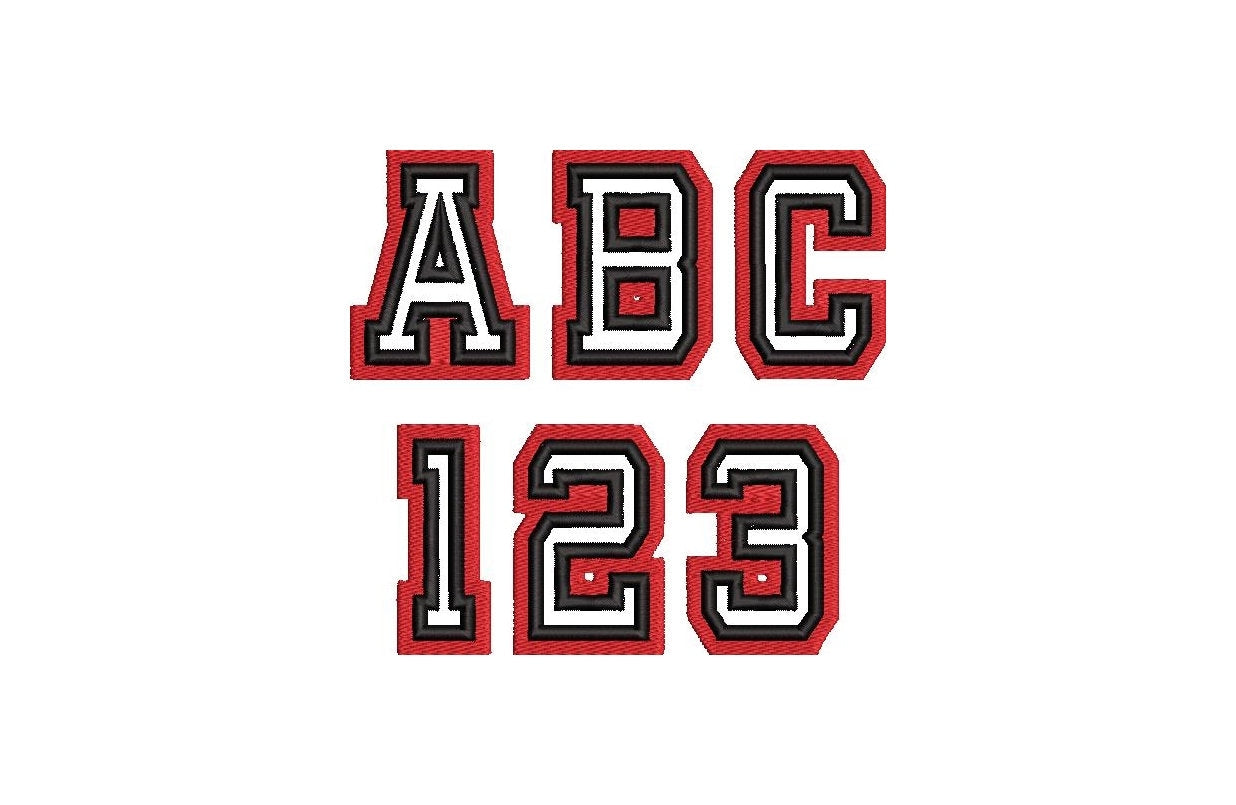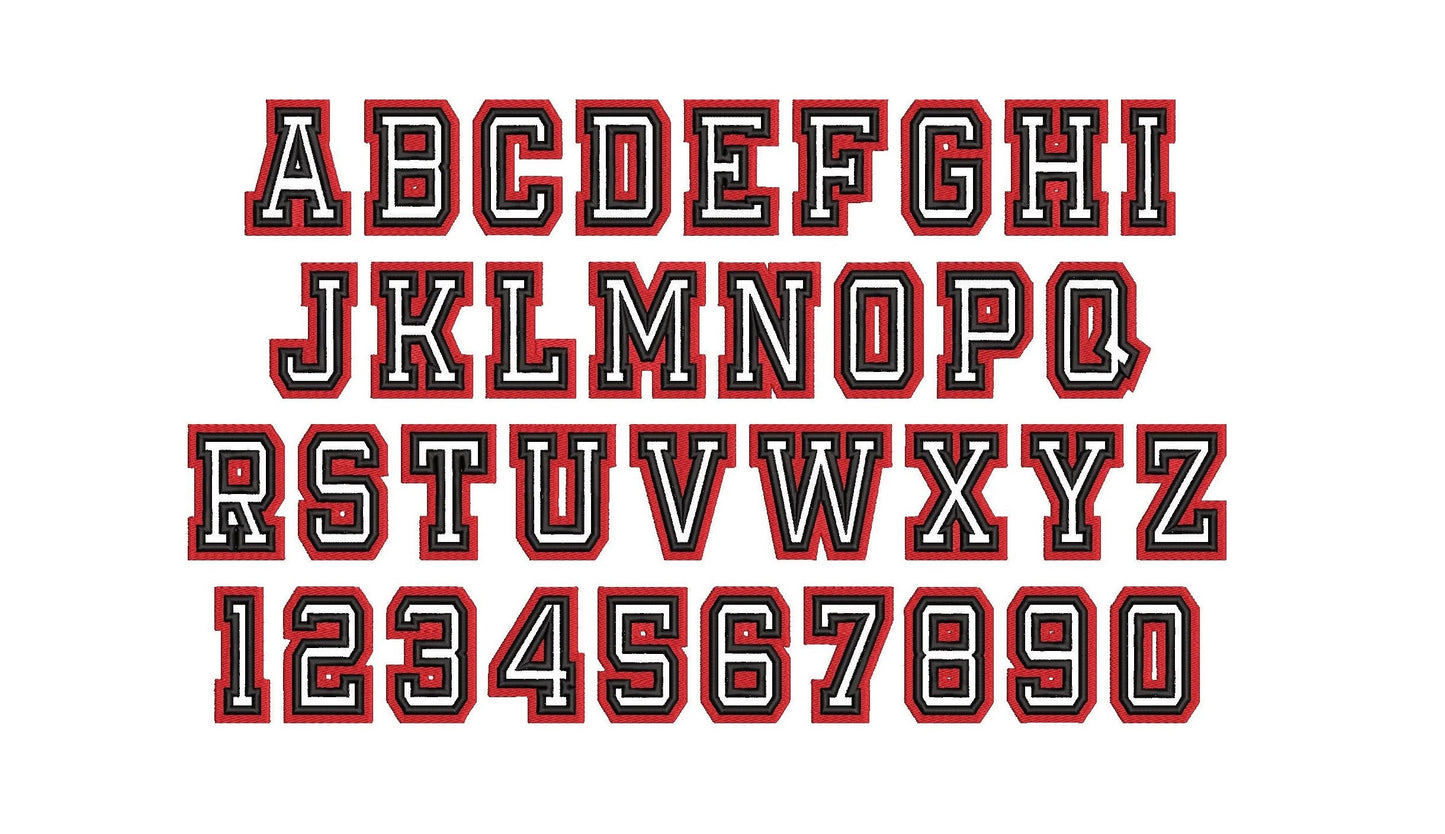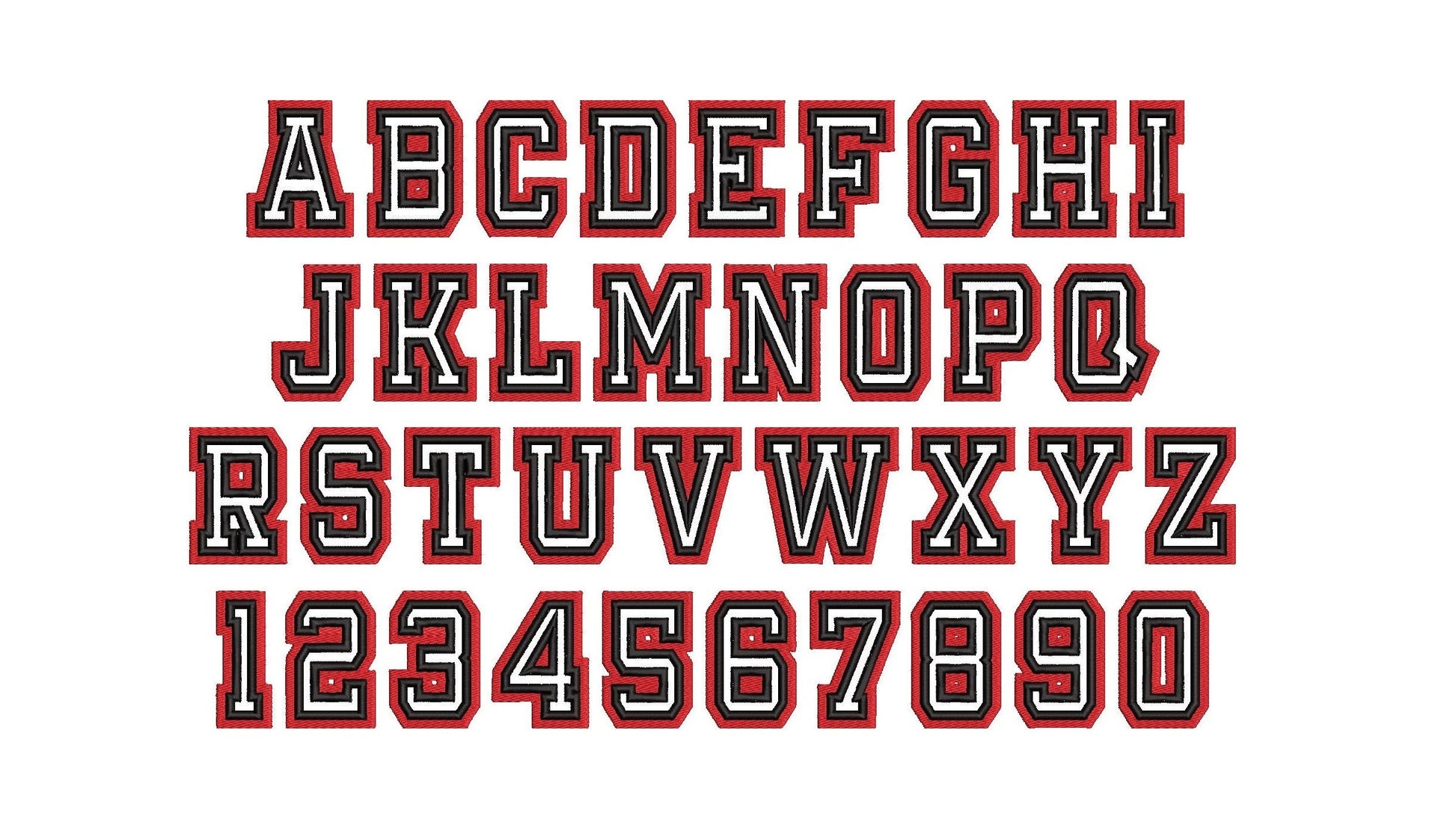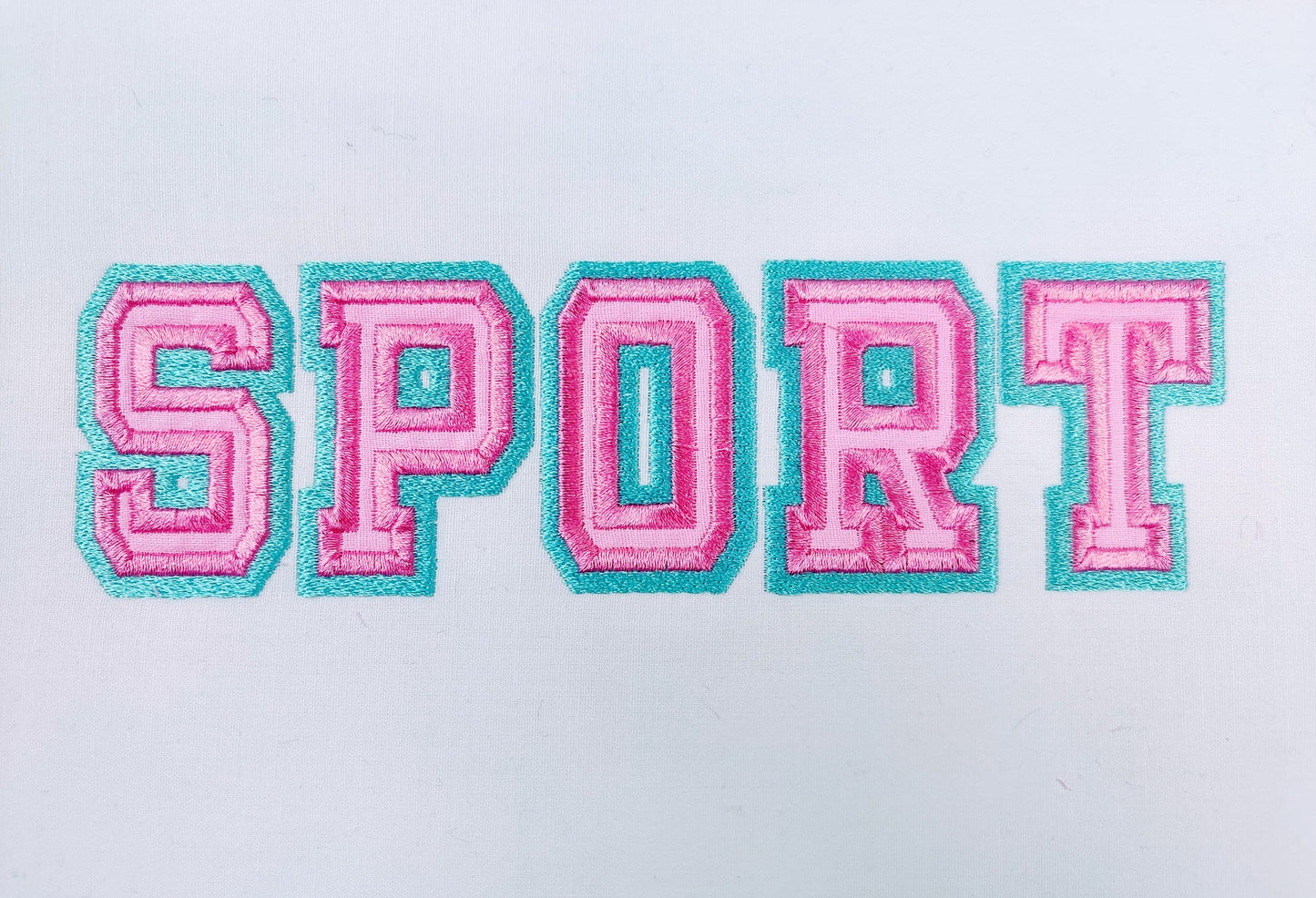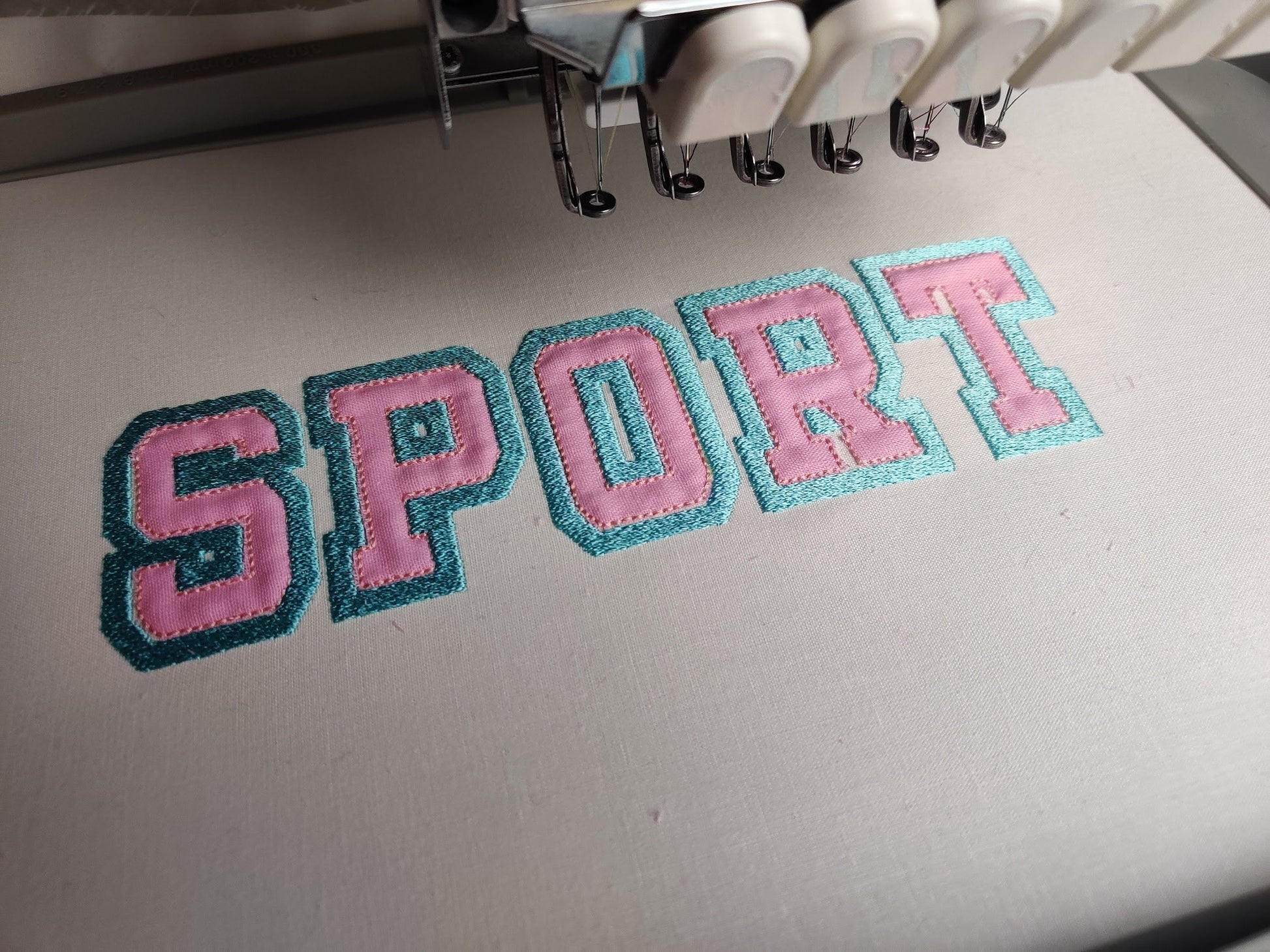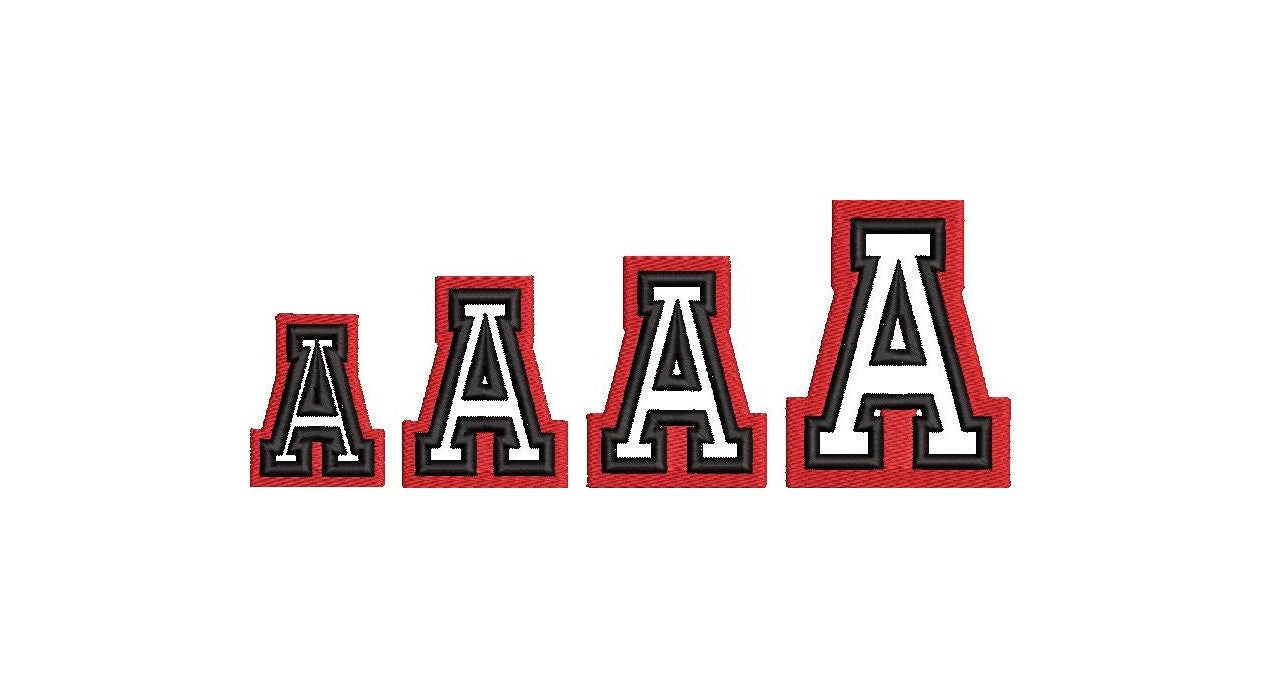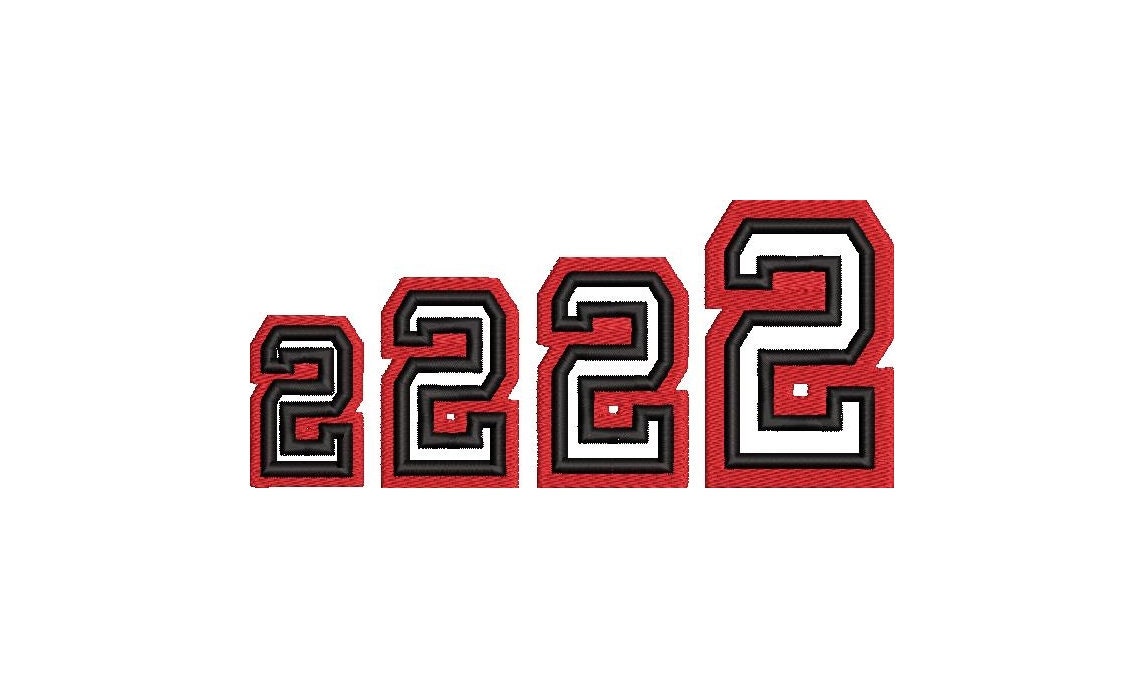
Or click to open the linkA thin athletic font with a double outline, in fill stitch with wide satin edges. Made for team shirts, jerseys and caps.
Uppercase letters A to Z and numbers 0 to 9. Four sizes: 1.8, 2.2, 2.5 and 3 inches.